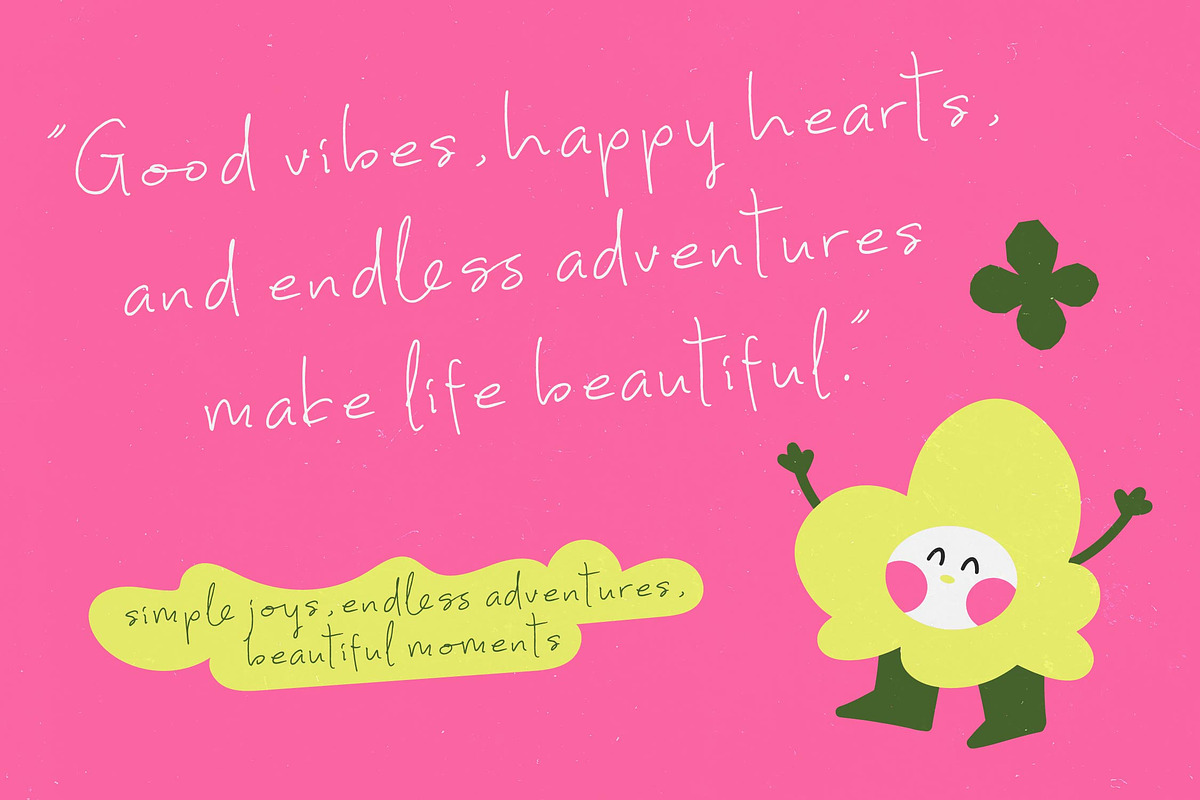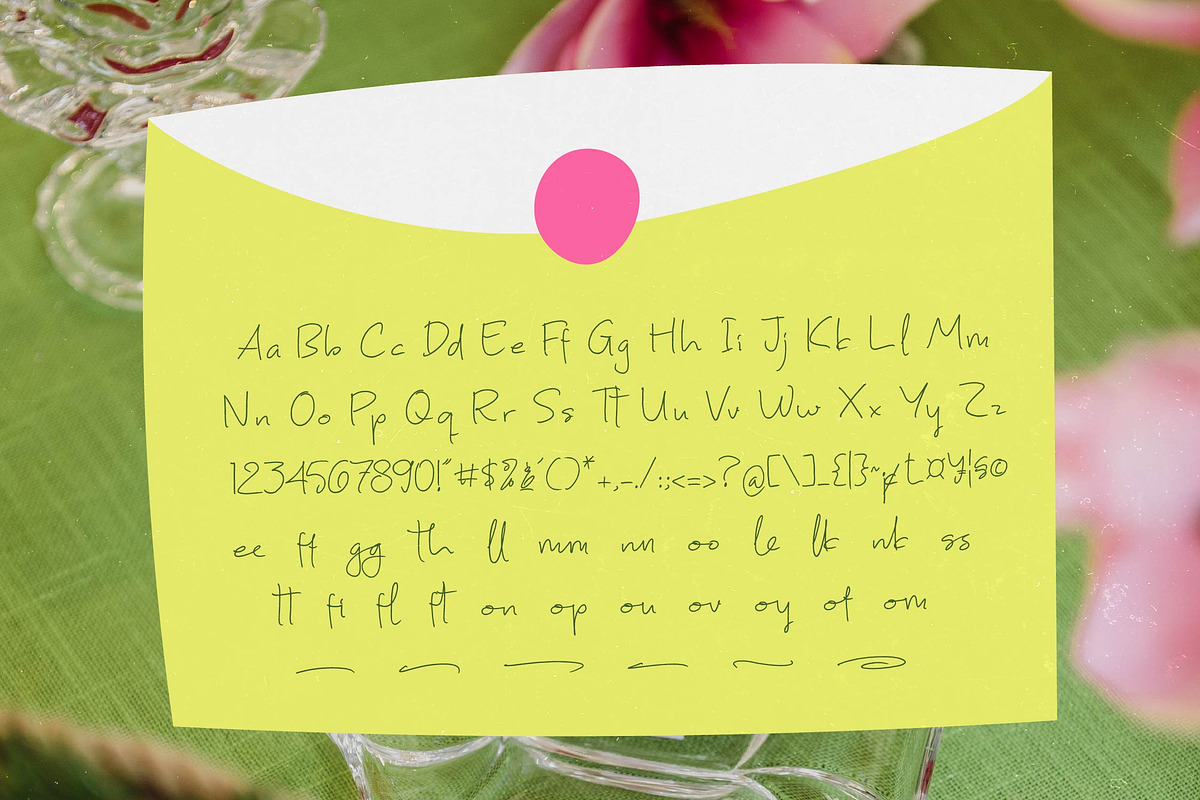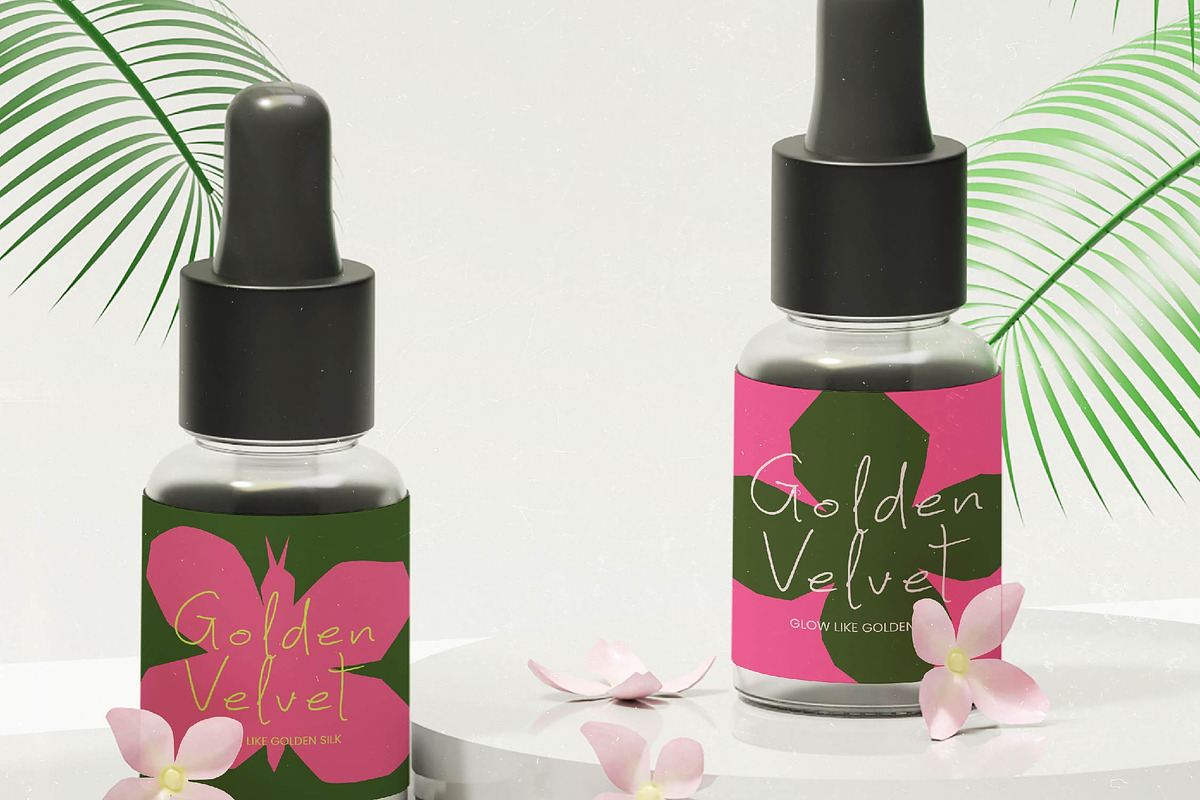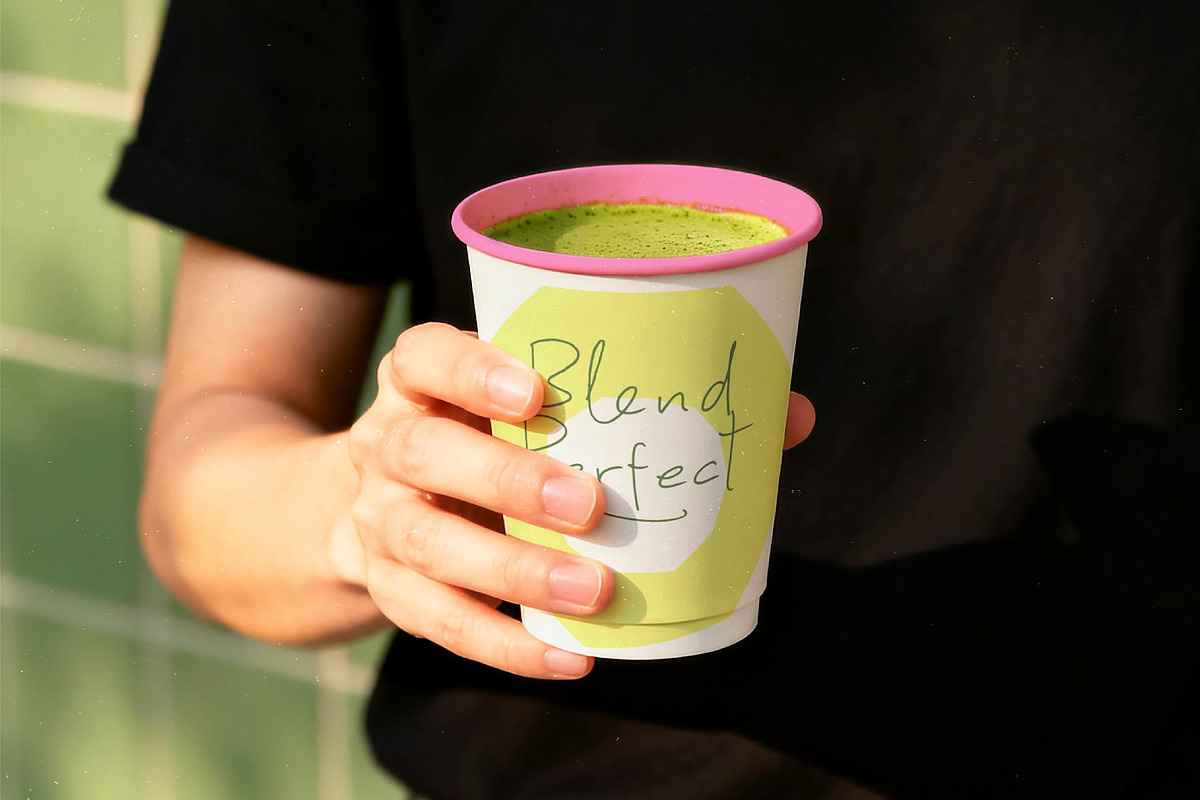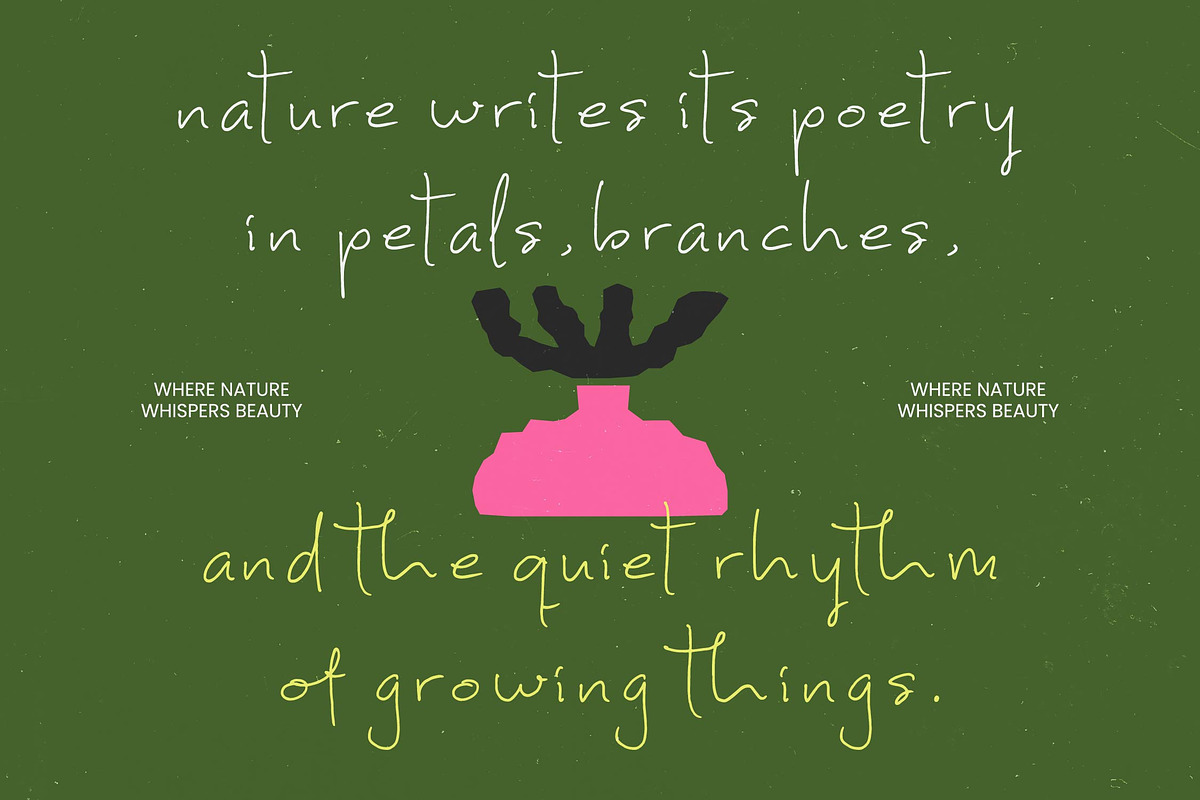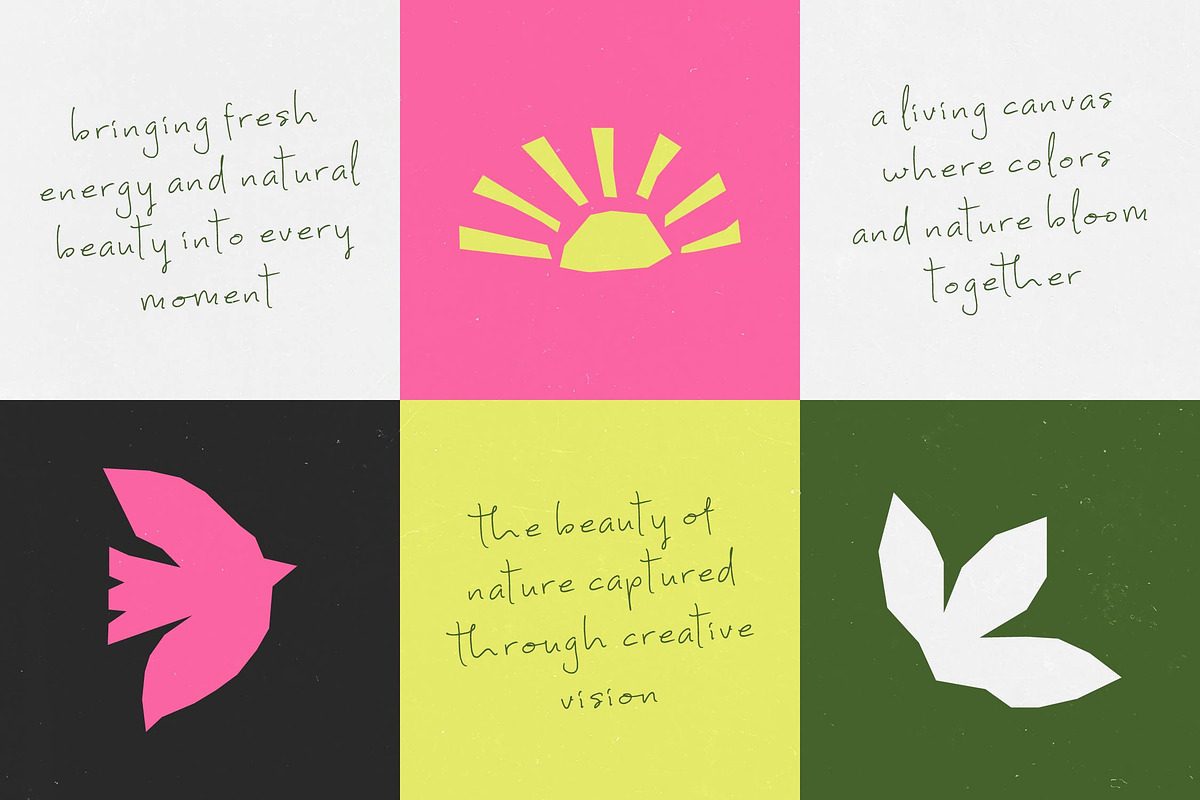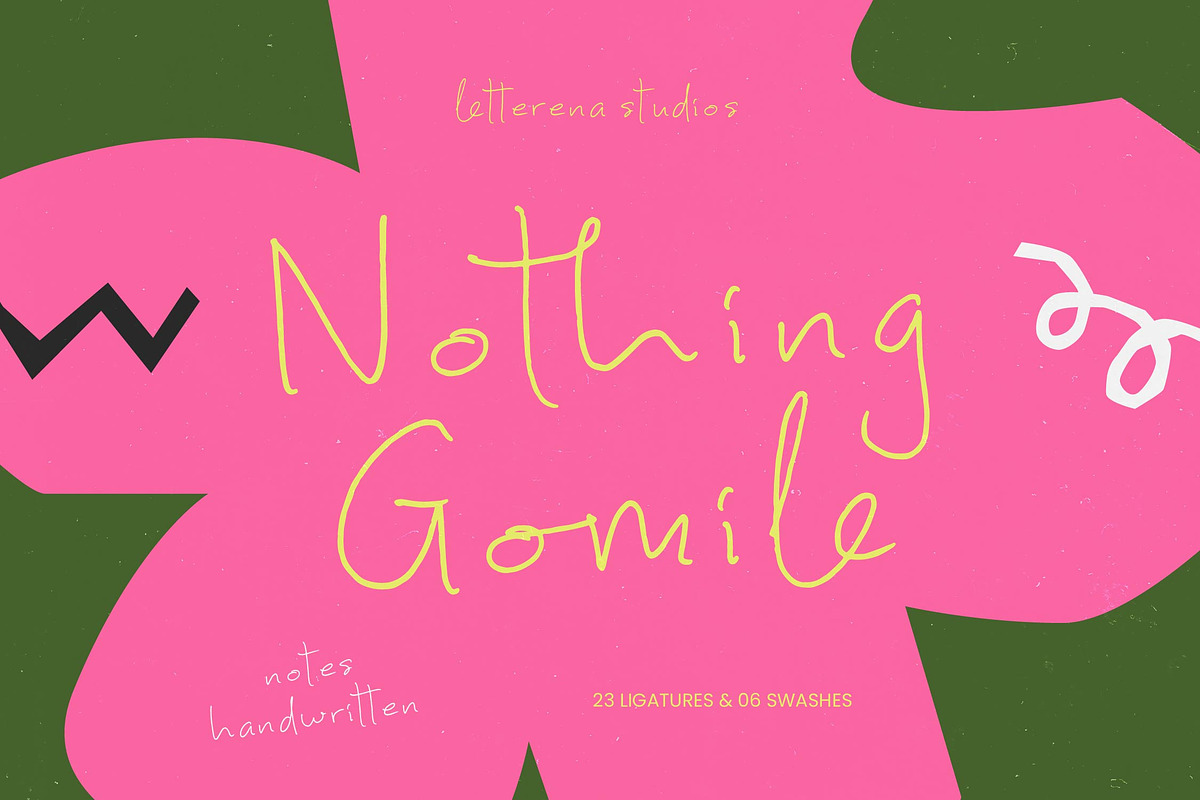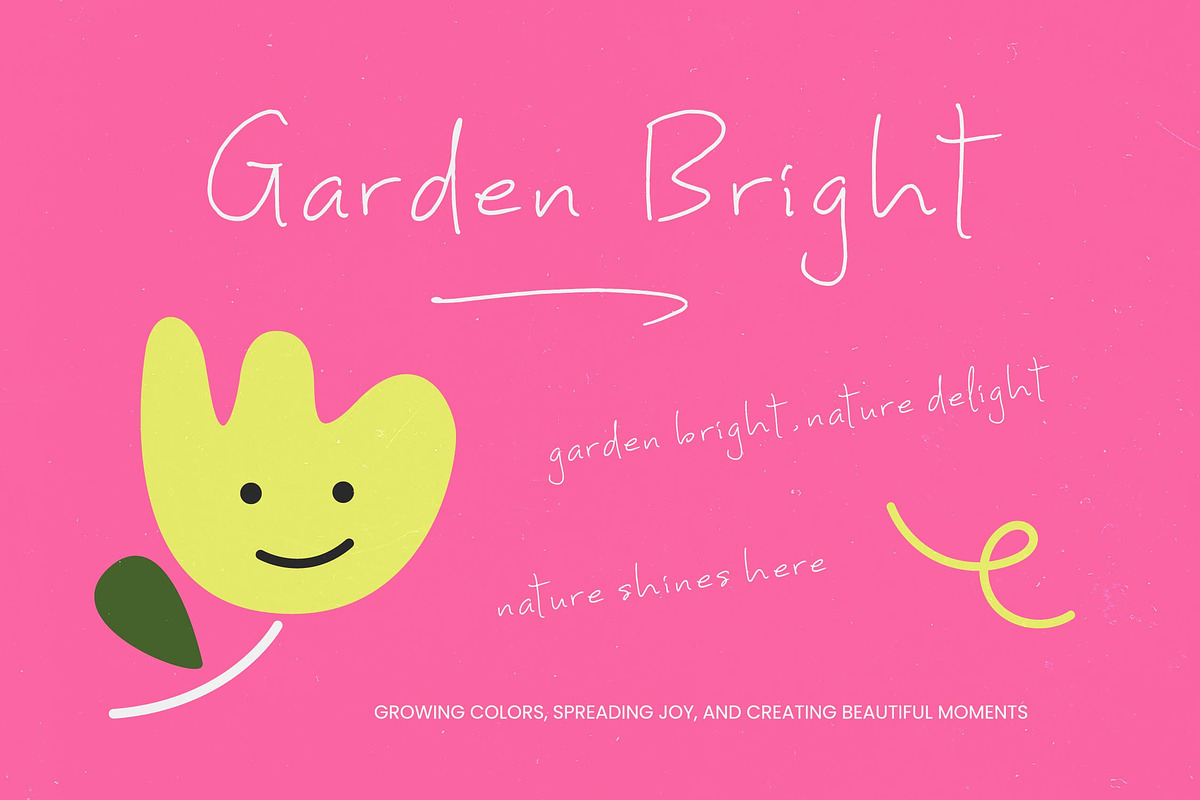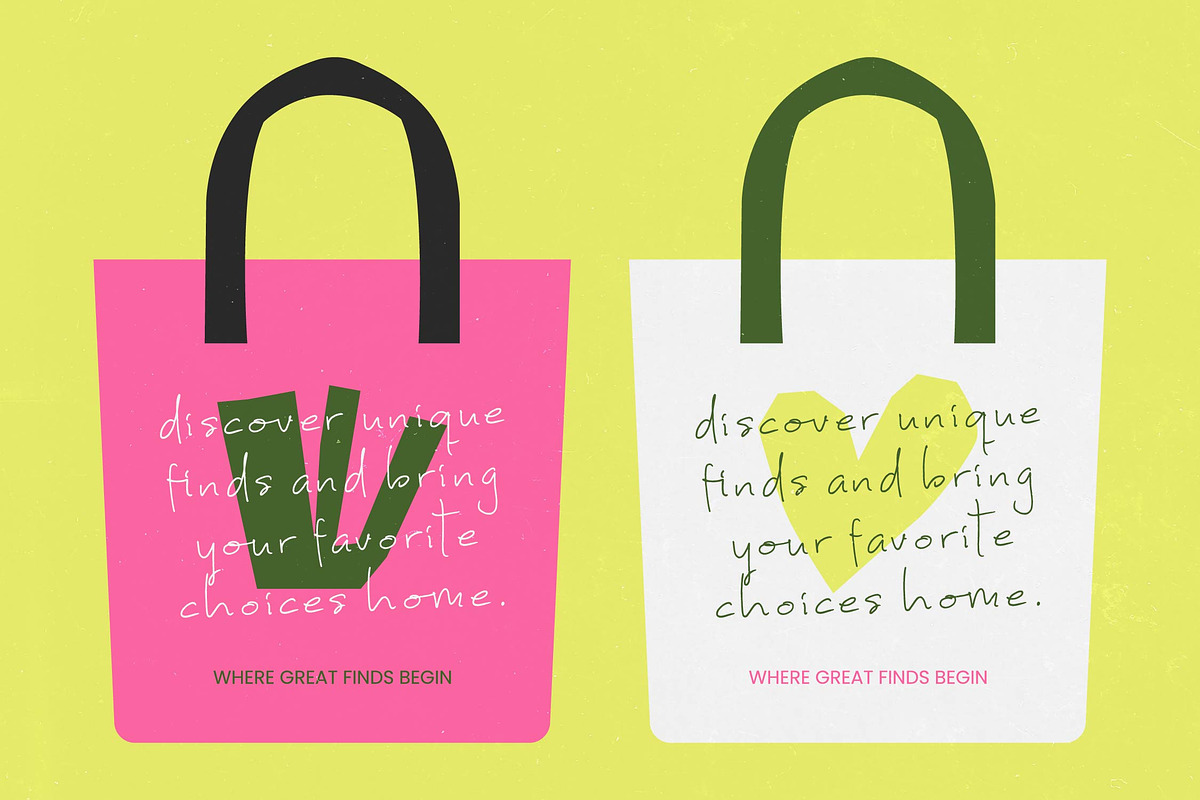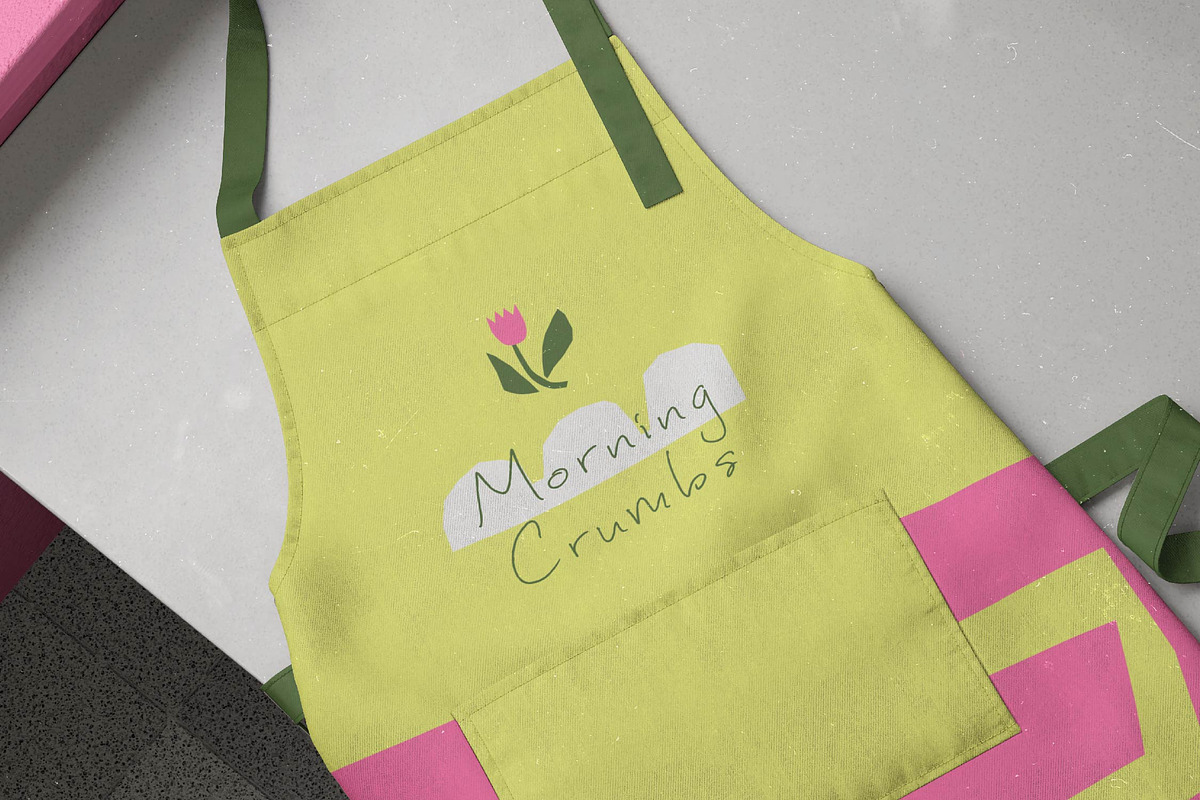
Nothing Gomile Notes Handwritten
Nothing Gomile - Notes Handwritten
Discover the art of effortless charm with Nothing Gomile - Notes Handwritten, a typeface designed to bring a personal, organic touch to your creative projects. This refined script captures the essence of spontaneous handwriting with its delicate strokes and fluid motion, offering a sense of intimacy and authentic charm that standard digital fonts often lack. Its thin, monolinear aesthetic ensures a clean and modern appearance while maintaining a warm, approachable personality that resonates with today’s design trends.
Elevate your compositions using the extensive features packed into Nothing Gomile - Notes Handwritten. Boasting 23 custom ligatures and 06 expressive swashes, this font allows for unparalleled creative flexibility and a truly bespoke feel. The seamless connection between characters mimics natural ink flow, making it an essential tool for designers who prioritize visual storytelling and unique character. This attention to detail ensures that every word looks hand-crafted and professionally curated for maximum impact.
Expand your creative reach effortlessly and connect with audiences worldwide. With its extensive multilingual support, Nothing Gomile - Notes Handwritten adapts seamlessly across global markets, making it incredibly versatile for international projects. Whether you are launching a global campaign or a niche boutique brand, this font provides the linguistic range necessary to maintain a consistent brand identity across different cultures and languages without compromising on its distinctive style.
Redefine your brand’s visual narrative through dynamic applications that demand attention. Nothing Gomile - Notes Handwritten is perfect for luxury branding, premium packaging, and lifestyle stationery where a touch of elegance is required. Its versatile nature also makes it an ideal choice for social media graphics, editorial layouts, and high-end invitation design. By choosing this typeface, you are investing in a sophisticated aesthetic that bridges the gap between modern minimalism and casual, artistic expression.